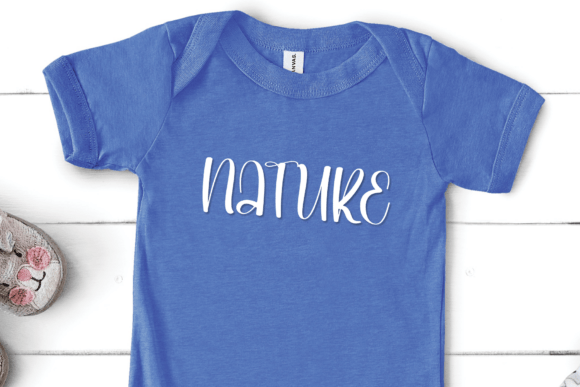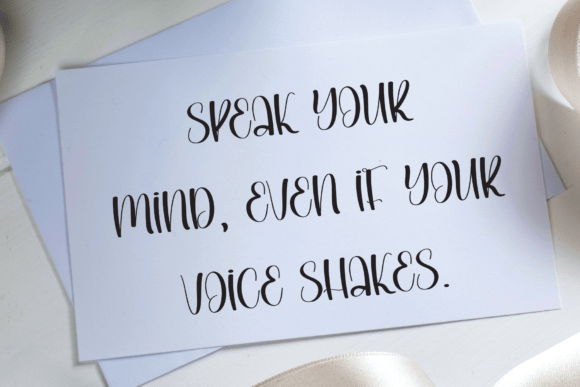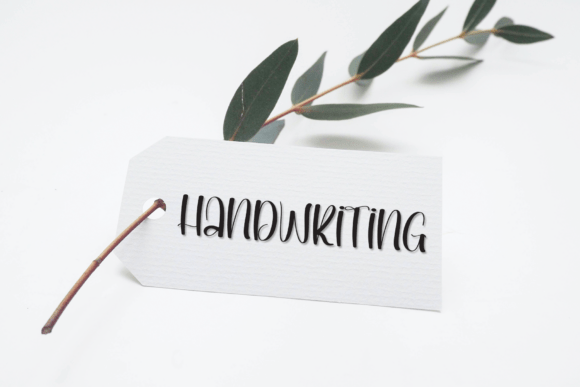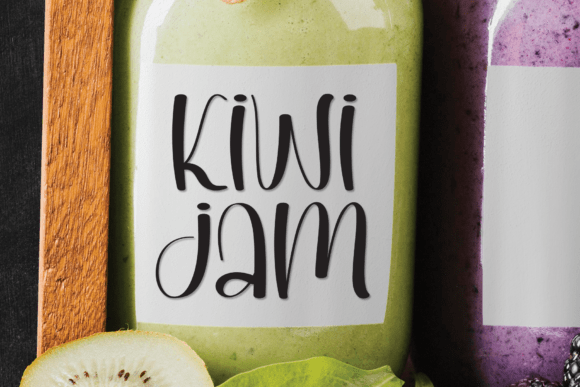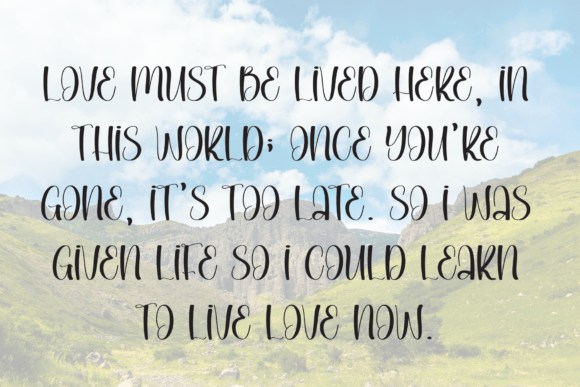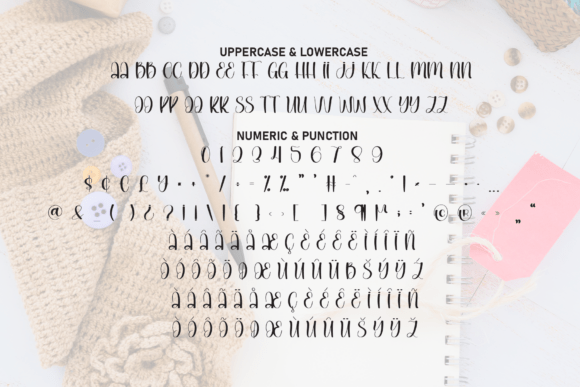
Discover the Charm of Catalog Handmade: A Bold, Playful & Artisanal Font
With its thick, hand-lettered silhouette and bouncy baseline, Catalog Handmade brings an artisanal charm to any layout. It’s the perfect blend of bold, playful, and creative, making it an excellent choice for designers, crafters, and creative hobbyists looking to add some personality to their projects.
A Honest Review of Catalog Handmade
- ✅ **Bold and eye-catching**: Catalog Handmade is designed to make your headlines pop, and it does so with style!
- ✅ **Playful and friendly**: The font’s bouncy baseline and chunky lettering give it a warm, approachable feel.
- ✅ **Versatile**: Catalog Handmade looks great in both print and digital formats, making it perfect for a variety of projects.
- ✅ **Easy to read**: Despite its bold nature, the font remains surprisingly legible, even at smaller sizes.
- ⚠️ **Limited use in body text**: While Catalog Handmade is stunning for headlines, it may not be the best choice for longer body text due to its bold nature.
- ⚠️ **Some glyph limitations**: As with any font, there may be limitations to the available glyphs or special characters, so be sure to review the font’s capabilities before committing to a project.
One of the exciting features of Catalog Handmade is its support for OpenType features and glyphs. These can add an extra layer of creativity to your designs. For example, you can use:
- Stylistic alternates to swap out letters or symbols for alternative designs.
- Glyphs to add special characters, such as ligatures or ornaments.
- Ligatures to combine letters or symbols for a more cohesive look.
The Backstory of Catalog Handmade
Catalog Handmade was designed with the intention of capturing the essence of handmade crafts and DIY projects. The font’s creator wanted to evoke the feeling of a craft fair or a bustling artisan market. With its bold, playful nature, Catalog Handmade is the perfect reflection of that vision.
Q: What is the best use for Catalog Handmade?
A: Catalog Handmade is perfect for product catalogs, DIY craft blogs, playful logo design, and high-energy social media graphics.
Q: Is Catalog Handmade available in multiple languages?
A: Catalog Handmade may have limited language support, so be sure to review the font’s capabilities before committing to a project.
Q: Can I use Catalog Handmade for both print and digital projects?
A: Absolutely! Catalog Handmade is designed to look great in both print and digital formats.